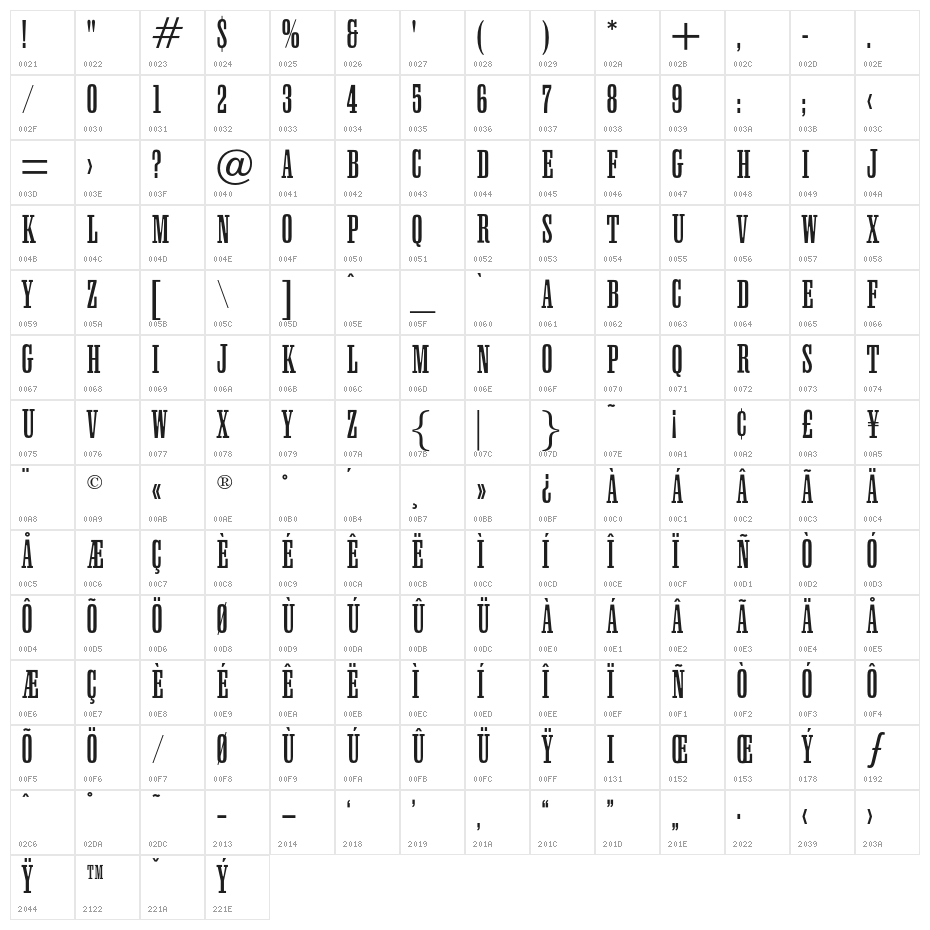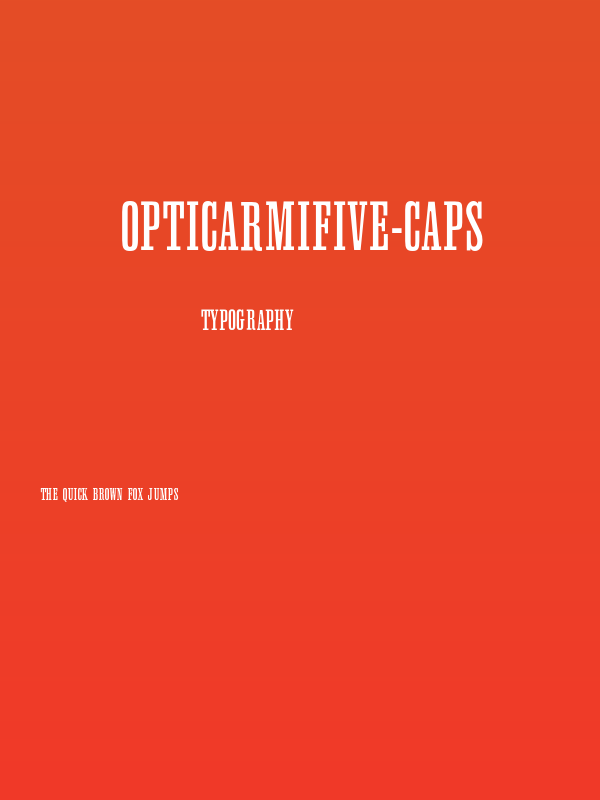
OPTICarmiFive-Caps Font
OPTICarmiFive-Caps Description
This font features a bold and striking design with tall, narrow characters that exude a sense of strength and authority. The uppercase letters are particularly elongated, giving them a commanding presence. The numbers and special characters maintain this boldness, ensuring consistency across all glyphs. The serifs are prominent and add a touch of classic elegance to the overall modern aesthetic. The font's high contrast between thick and thin strokes enhances its readability and visual impact, making it suitable for attention-grabbing headlines and titles.
| Proposed Projects | Ideal for use in headlines, posters, branding materials, and any project requiring a strong visual impact. |